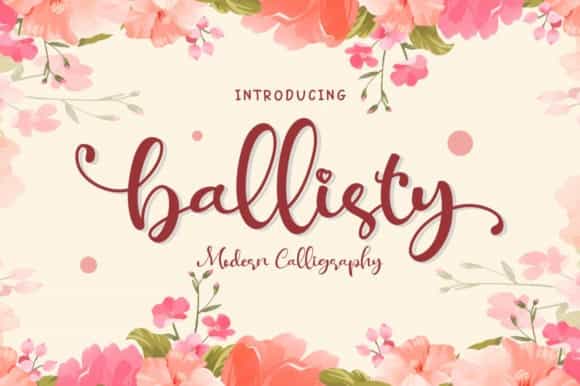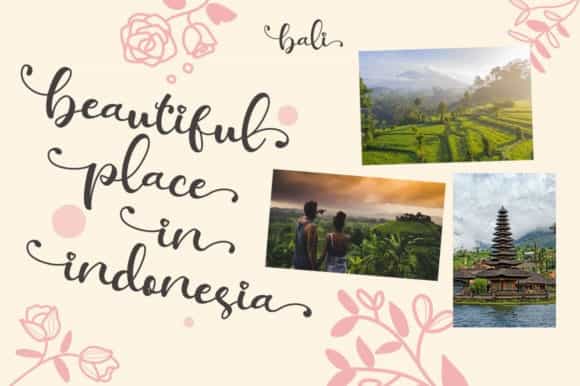
Ballisty is a font that was inspired by the Luxury script style and can be used to create fun themes, such as signature, poster, fashion, wedding and branding.